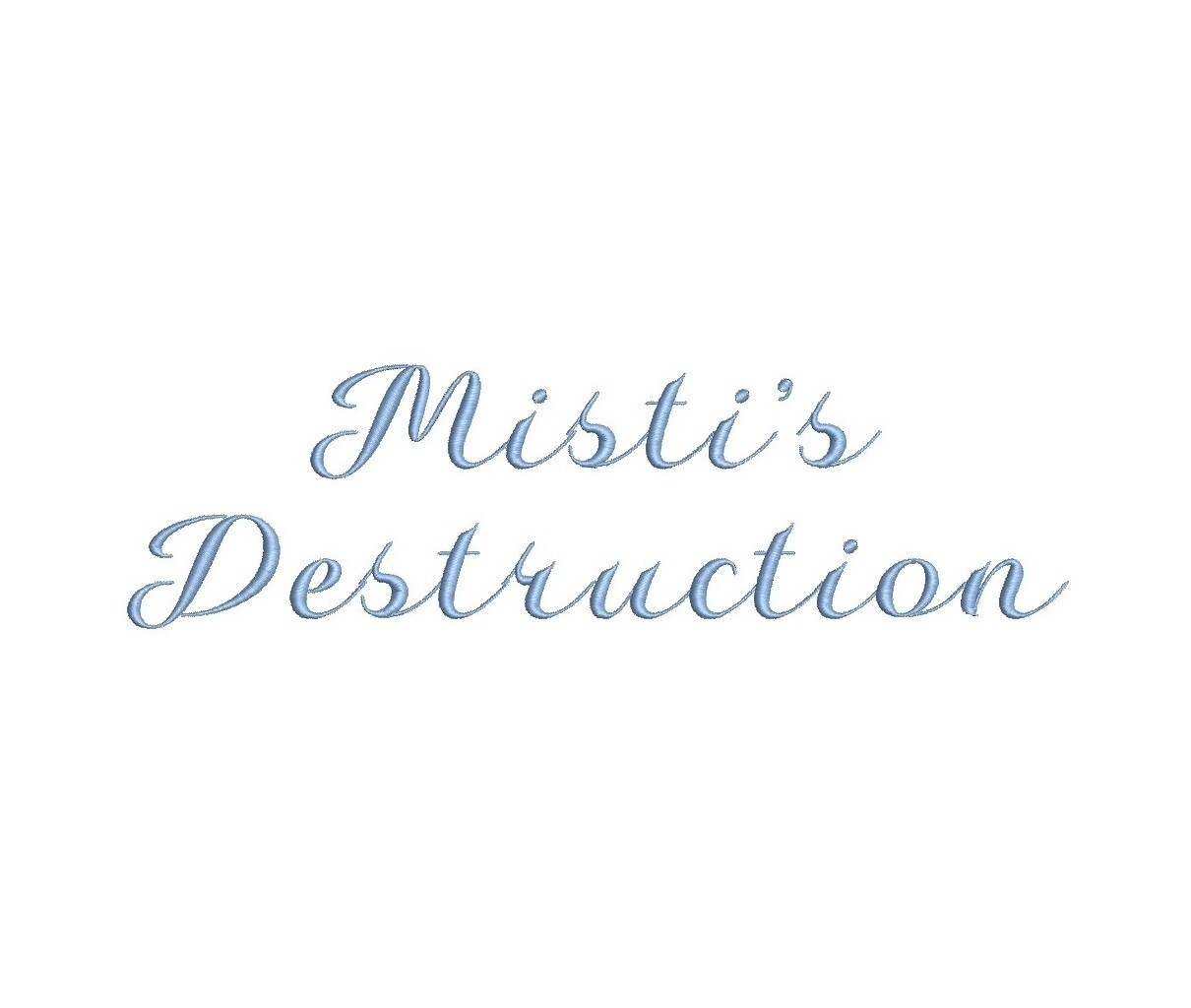
Explore the intensity of Misti's Destruction Regular ESA font, a powerful choice for your embroidery designs. Infused with raw energy, this font exudes boldness and impact. Compatible with Wilcom Studio e4.5.6 and Hatch 3 versions and up, it seamlessly integrates into your digitization process. Craft striking monograms, logos, and decorative accents effortlessly, conveying strength through every stitch. Elevate your embroidery projects with a touch of fierceness and make them truly standout. Don't miss the chance to unleash your creativity with Misti's Destruction Regular ESA font. Experience the art of impactful design today!